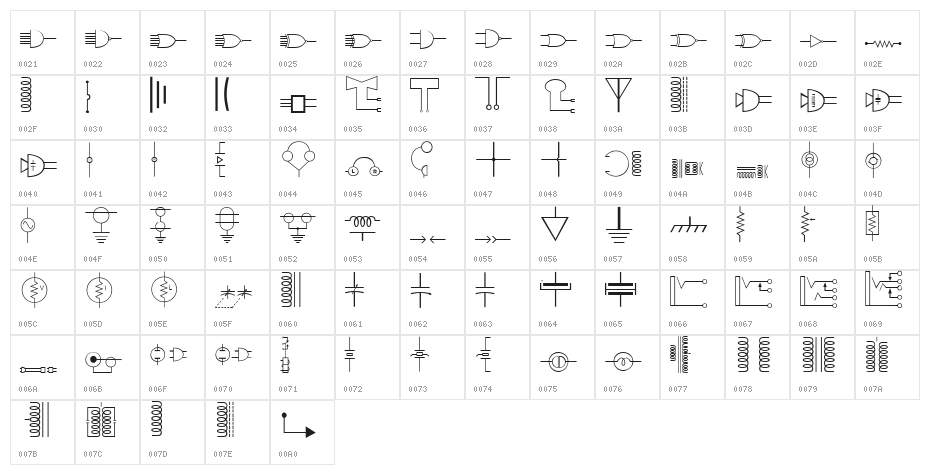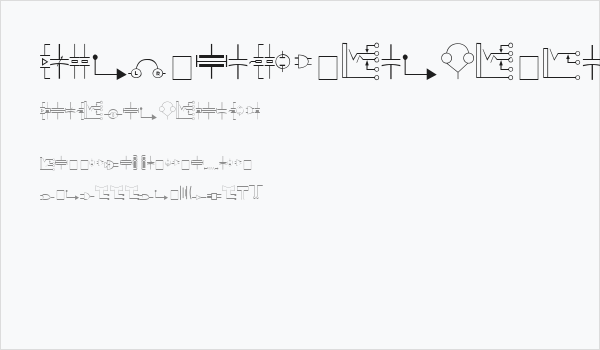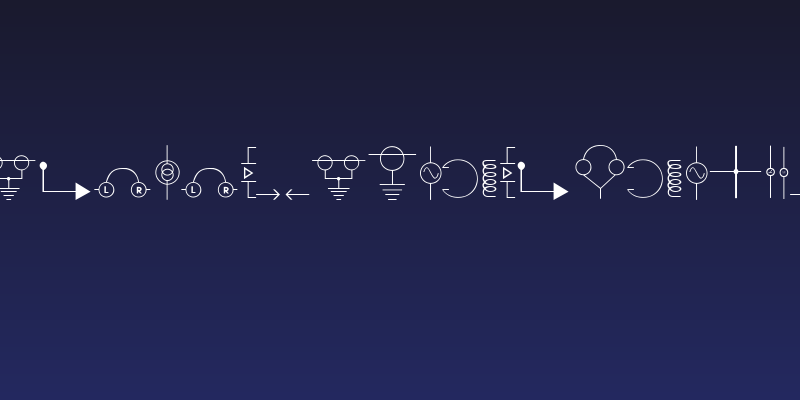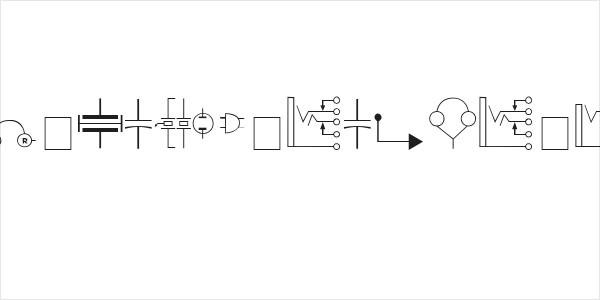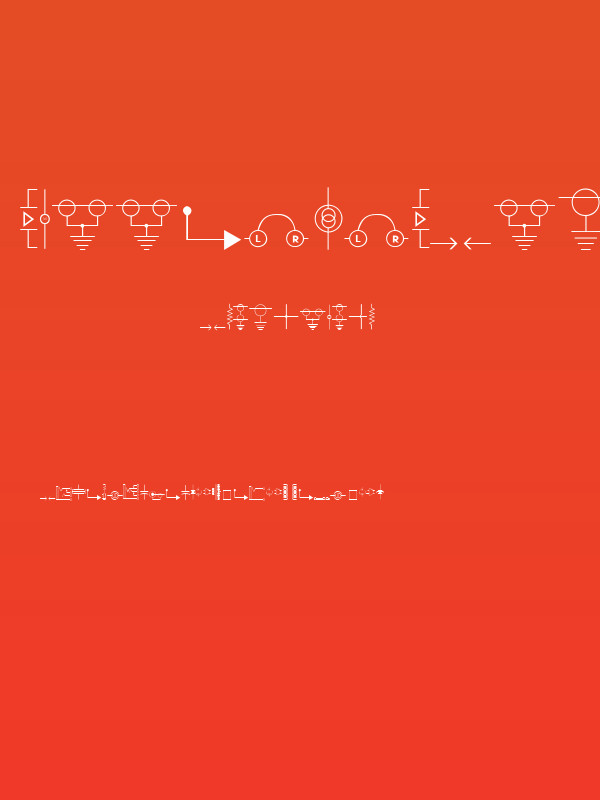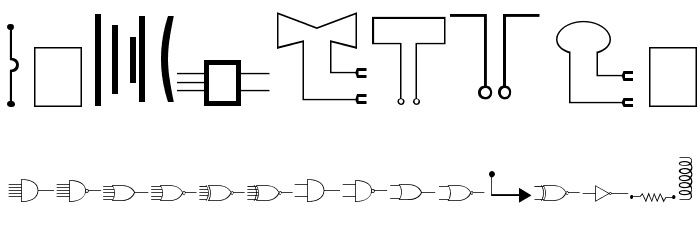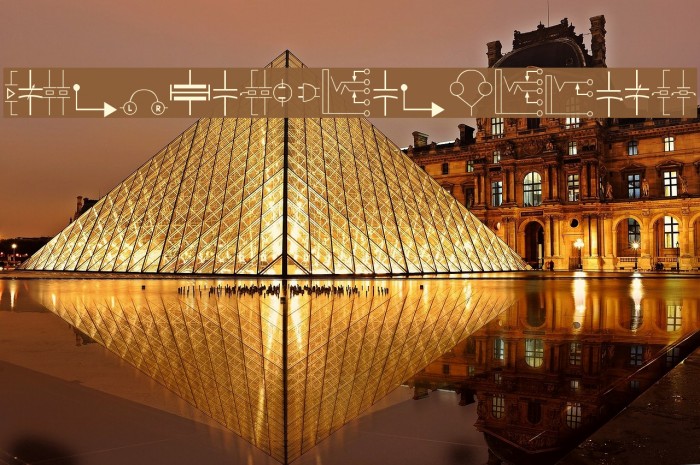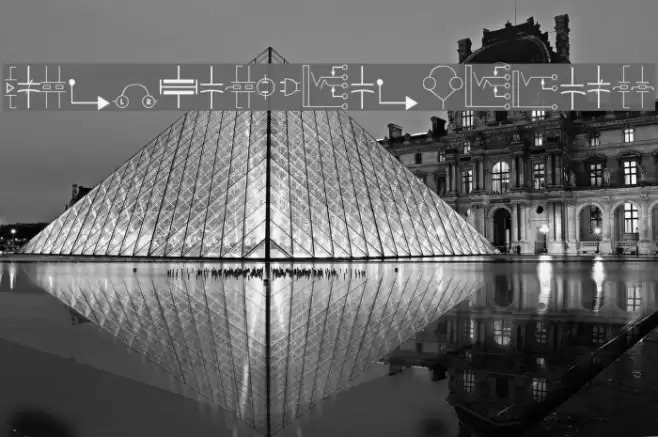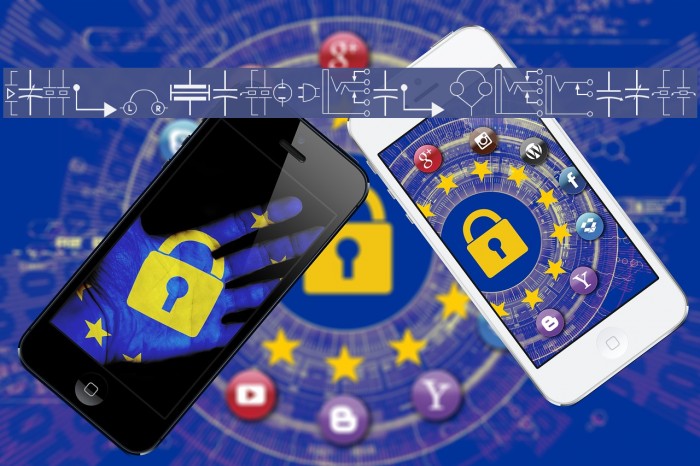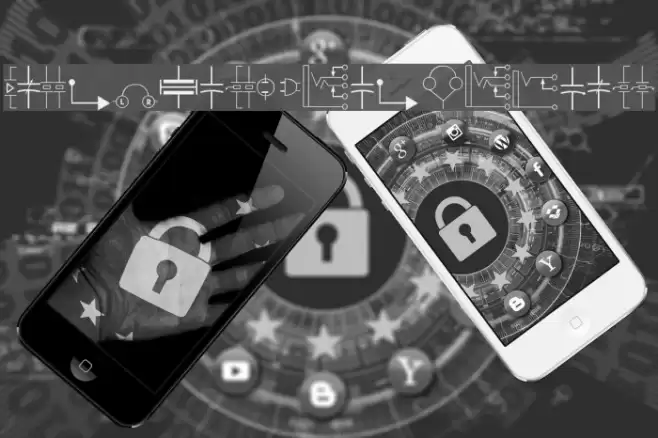
Carr Electronic Dingbats Font
| Gesamtstil | Technical |
| Anwendungsfall | Technical diagrams, Educational materials |
| Vorgeschlagene Projekte | Ideal for creating educational materials, technical schematics, and electronic circuit diagrams. |